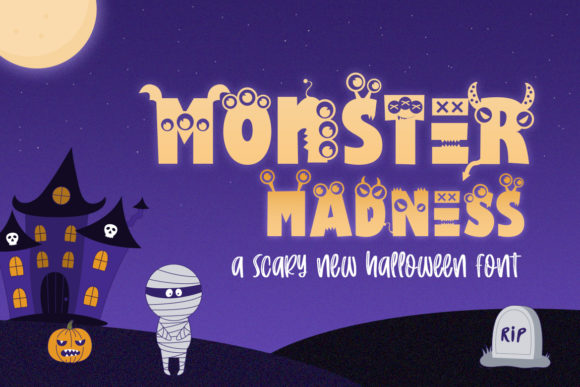
Prepare to be spooked by the hauntingly beautiful Monster Madness Font, a display font that will cast a spell on your Halloween creations. Crafted by the masters at Salt and Pepper Fonts, this eerie font is the perfect addition to any Halloween-inspired design, adding a touch of spine-tingling charm to your projects.
Embrace the spooky spirit of Halloween with Monster Madness Font, the perfect choice for creating enchanting invitations, spine-chilling flyers, and bewitching social media posts. Let your imagination run wild as you craft delightfully dreadful designs that will send shivers down the spines of your audience.
With its unique and eye-catching design, Monster Madness Font will make your Halloween creations stand out from the crowd. Its enchanting curves and sharp edges evoke the essence of the holiday, creating an unforgettable visual experience. Whether you're designing spooky posters, invitations, or social media graphics, this font will add a touch of Halloween magic to your projects.